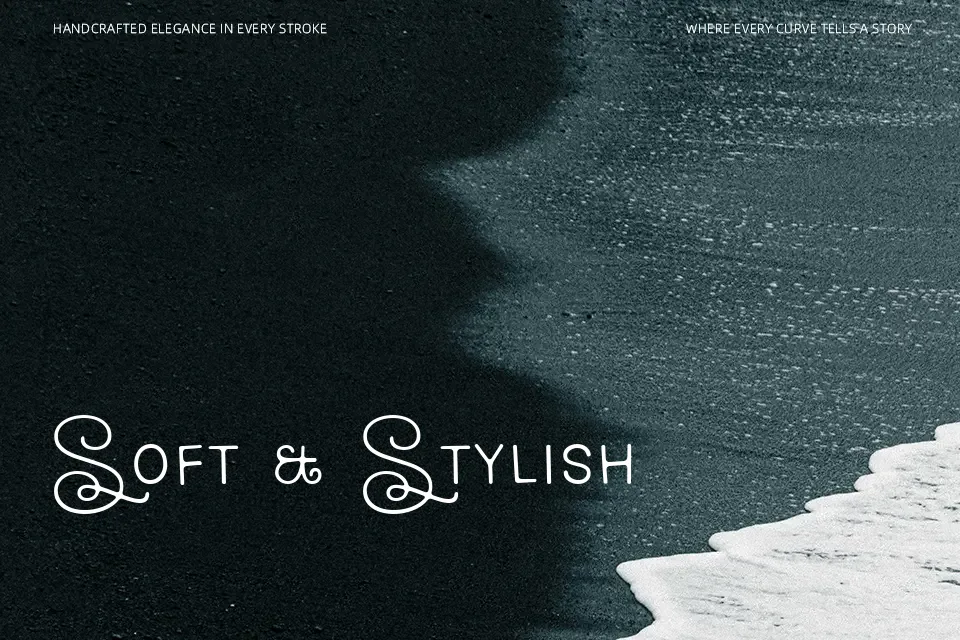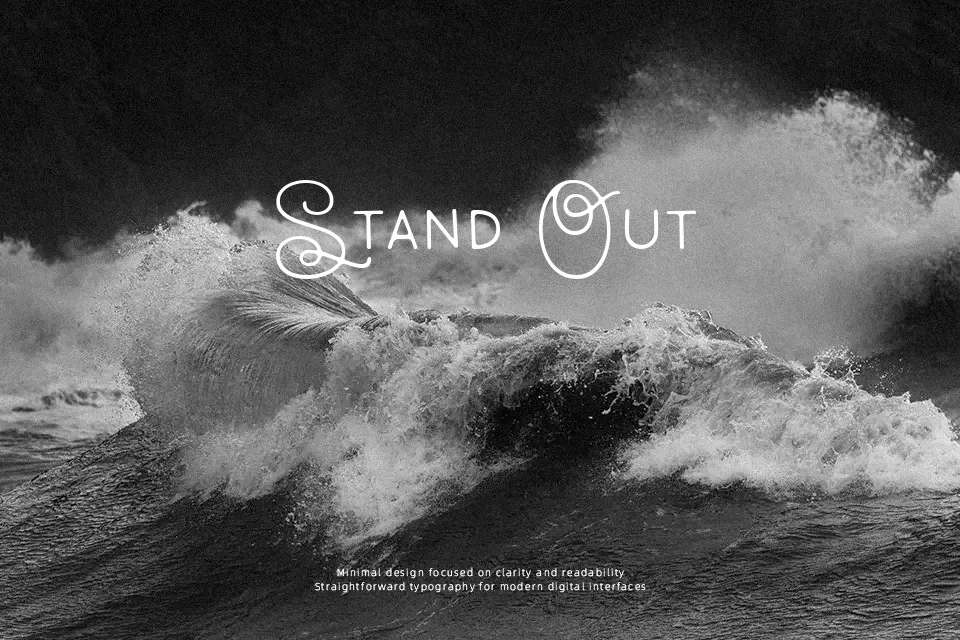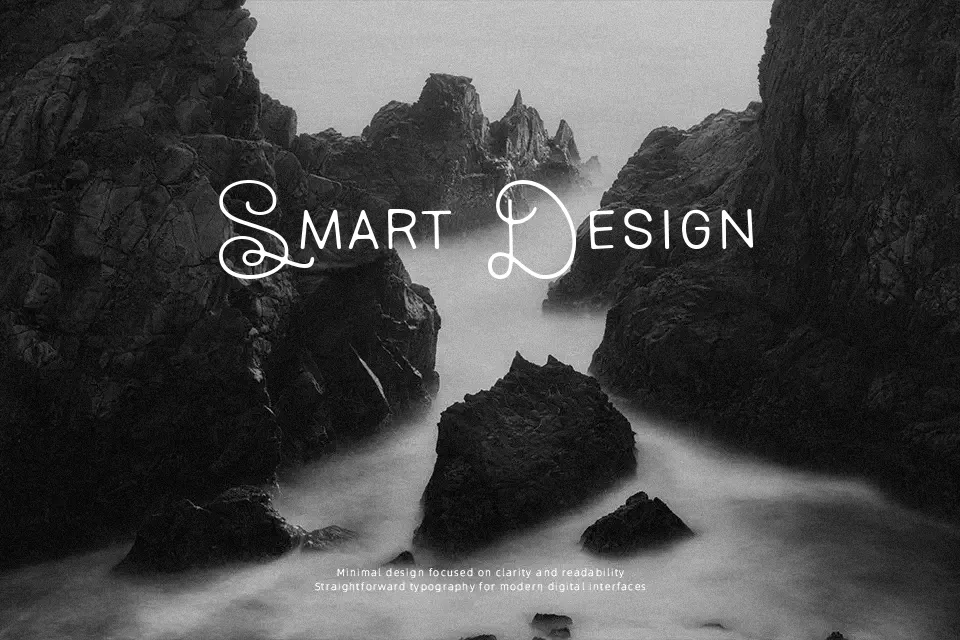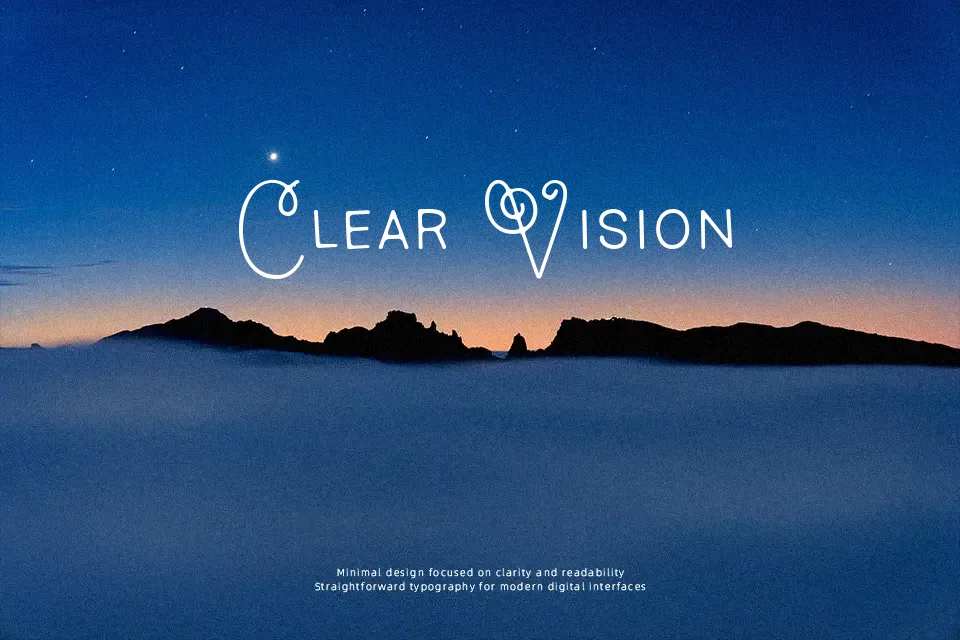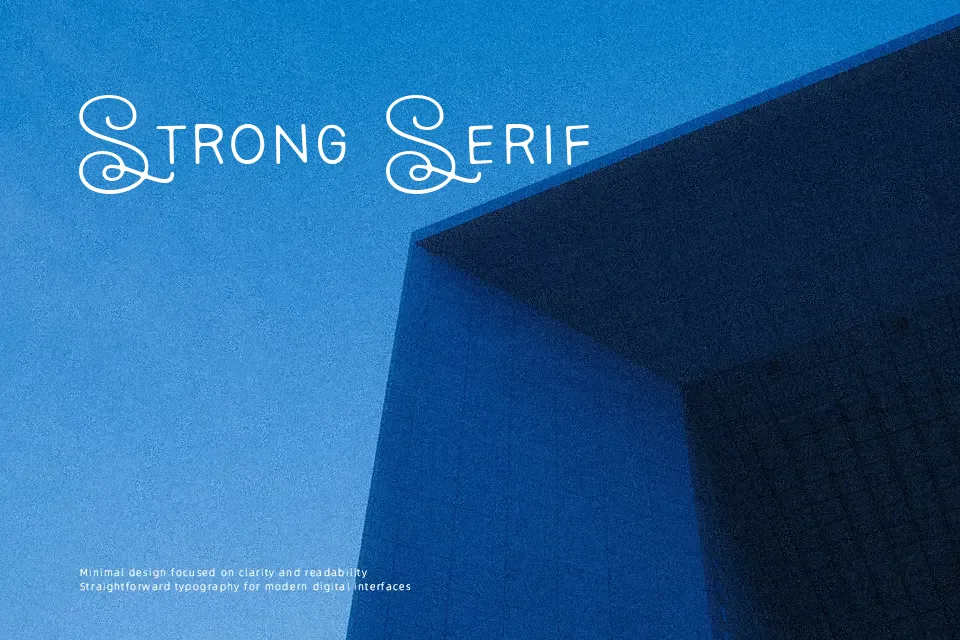
Vanilla Swirl Font
Designed by Brittney Murphy Design
Vanilla Swirl Font showcases a lively display aesthetic built with fluid, handwritten-inspired strokes and ornate curling terminals. Generous inner counters balance its medium stroke weight, while the open character spacing preserves clear letterform separation in large headlines. The uppercase glyphs carry pronounced spiral elements that pair neatly with more restrained lowercase forms. While the decorative swirls maintain strong visual interest in short titles and creative branding, the intricate embellishments reduce readability in smaller captions and extended text blocks. The typeface performs best when displayed at larger sizes, where its unique ornamental details can function without cluttering adjacent layout elements.
artisanal product packaging,greeting card headings,boutique brand logos,seasonal event posters
dense editorial paragraphs,mobile interface body text,technical documentation,small legal disclaimers